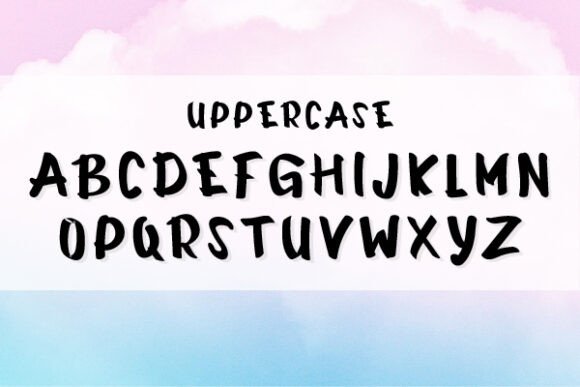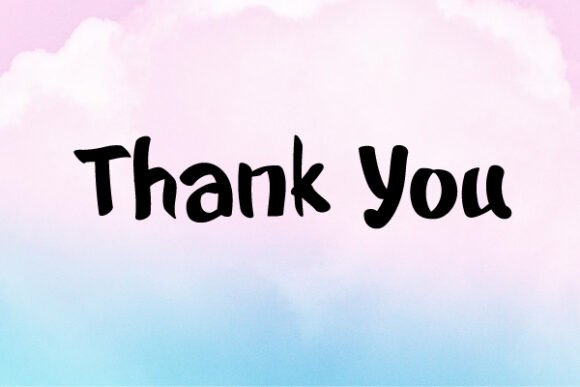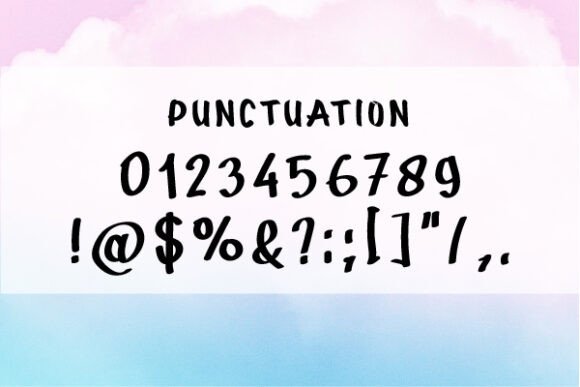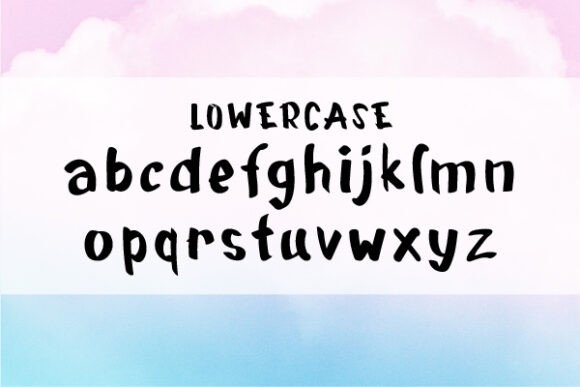
Introducing Exbold Font: The Perfect Handwritten Sans Serif for Your Creative Projects
Are you tired of using the same old fonts for your design projects? Look no further! Exbold Font is here to add a touch of personality and whimsy to your creations. Designed in a beautiful handwritten sans serif font style, Exbold is the perfect addition to your fonts library. In this article, we’ll dive into the features and benefits of Exbold Font, and explore how you can use it to bring your DIY projects to life.
What is Exbold Font?
Exbold Font is a unique and refreshing handwritten sans serif font, designed to add a relaxed and friendly touch to your designs. Its clean and simple lines make it perfect for a wide range of projects, from back to school materials to wedding invitations, party decorations, and social media posts. With Exbold Font, you can add a personal touch to your designs and make them stand out from the crowd.
Key Features of Exbold Font
- Handwritten sans serif font style: Exbold Font boasts a beautiful handwritten sans serif font style that is both modern and elegant.
- Easy to read: The clean and simple lines of Exbold Font make it easy to read, even at small sizes.
- Versatile: Exbold Font is perfect for a wide range of projects, from digital designs to print materials.
- Unique and creative: Exbold Font adds a touch of personality and whimsy to your designs, making them stand out from the crowd.
How to Use Exbold Font in Your Projects
Exbold Font is perfect for a wide range of projects, including:
- Back to school materials: Add a personal touch to your back to school designs, such as flyers, posters, and worksheets.
- Wedding invitations: Make your wedding invitations stand out with Exbold Font’s elegant and modern design.
- Party decorations: Use Exbold Font to create fun and playful party decorations, such as banners, garlands, and signs.
- Social media posts: Add a touch of personality to your social media posts with Exbold Font’s unique and creative design.
- Blogs and websites: Use Exbold Font to add a personal touch to your blog or website, making it stand out from the crowd.
Benefits of Using Exbold Font
By using Exbold Font in your projects, you’ll enjoy a range of benefits, including:
- Increased creativity: Exbold Font’s unique and creative design will inspire you to think outside the box and try new things.
- Improved readability: Exbold Font’s clean and simple lines make it easy to read, even at small sizes.
- Enhanced visual appeal: Exbold Font’s elegant and modern design will add a touch of sophistication to your designs.
- Time-saving: With Exbold Font, you can create professional-looking designs in no time, saving you time and effort.
In conclusion, Exbold Font is a unique and refreshing handwritten sans serif font that is perfect for a wide range of creative projects. With its clean and simple lines, Exbold Font is easy to read and adds a touch of personality and whimsy to your designs. Whether you’re a designer, crafter, or DIY enthusiast, Exbold Font is a must-have addition to your fonts library. So why wait? Download Exbold Font now and bring your DIY projects to life!